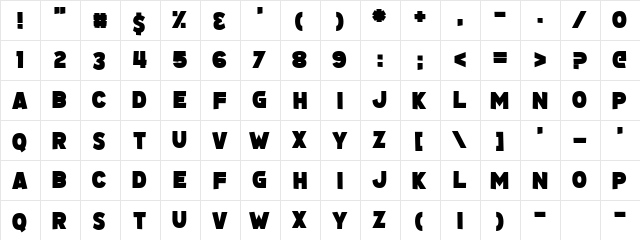
Wozcott Regular
| Designer | Allison James |
Design Context for Wozcott Typeface
Wozcott offers clean, dependable letterforms without strong stylistic allegiance, making it a practical choice for designers who need flexibility.